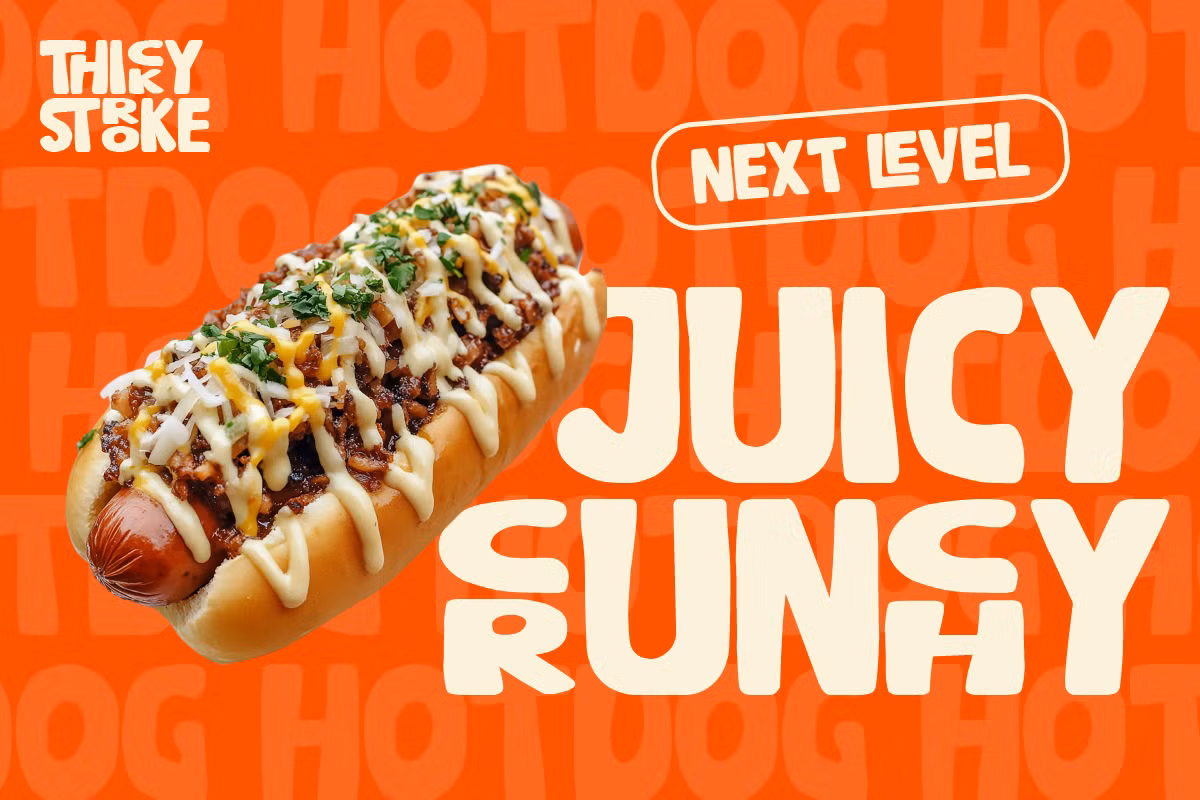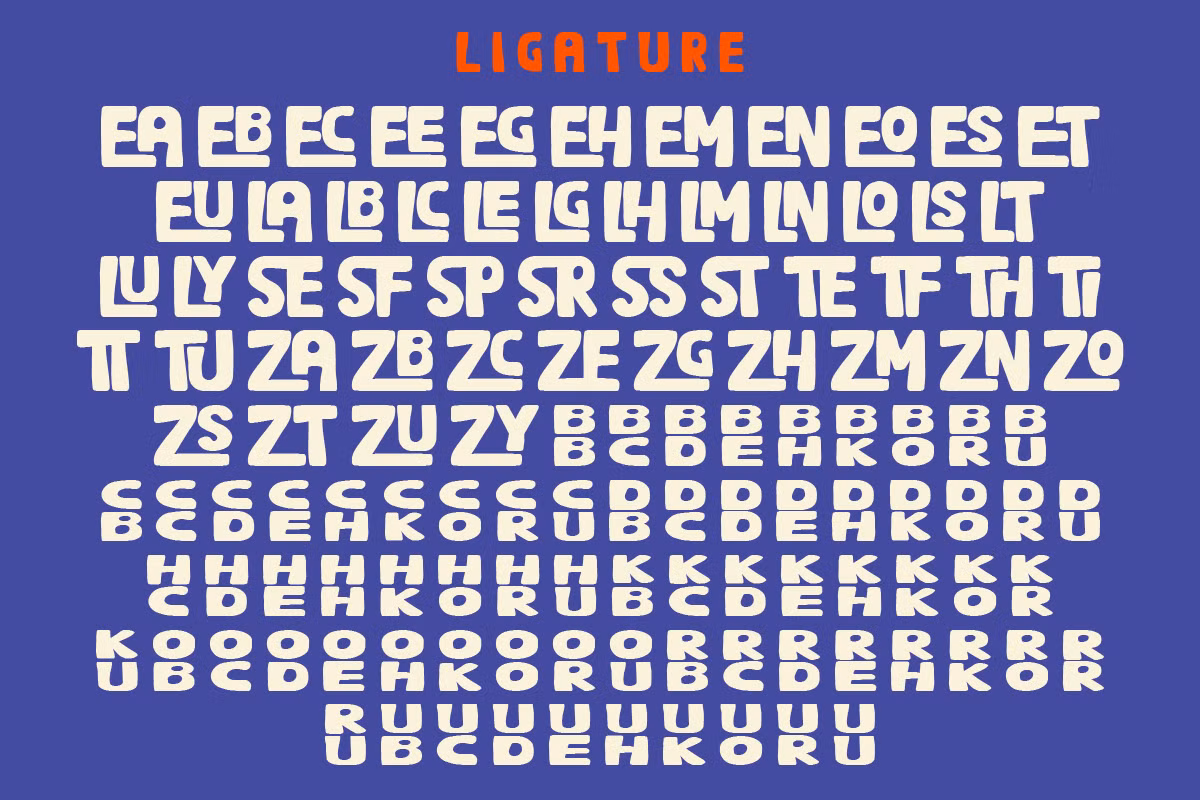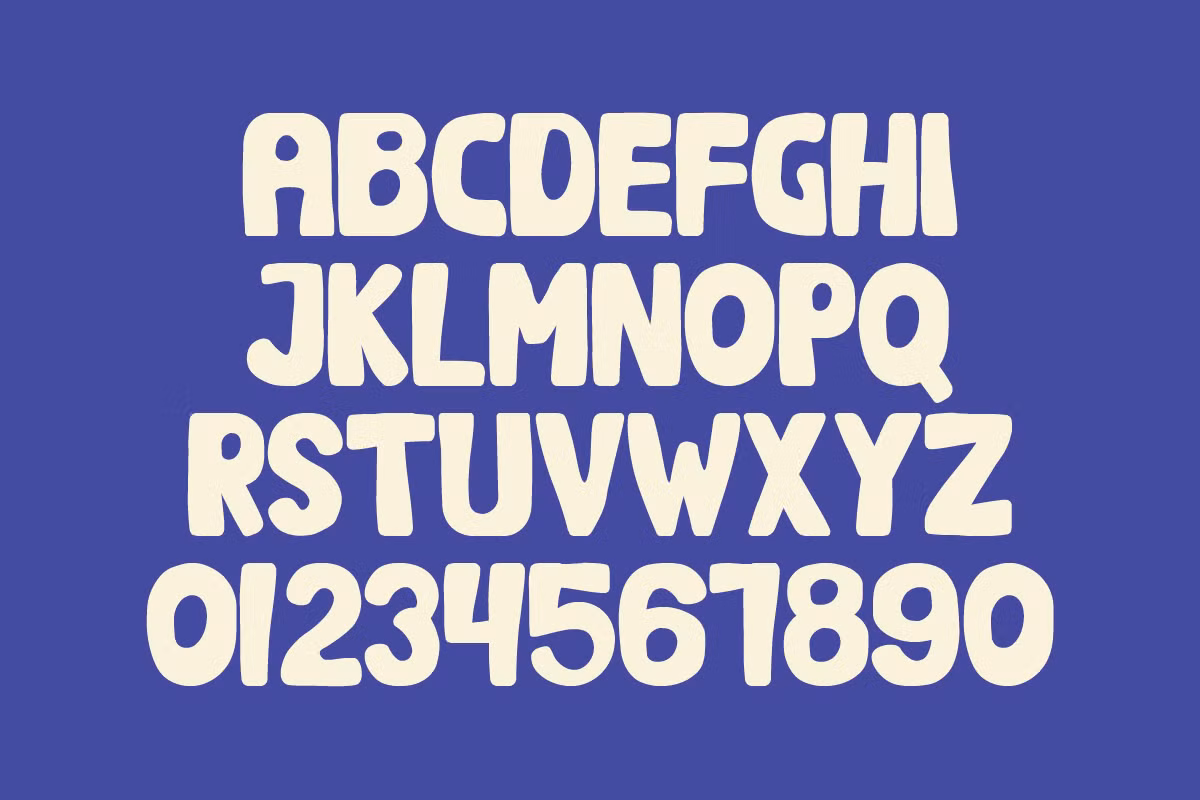
Thicky Stroke: Modern Handrawn Font for Versatile Design Applications
Introducing ThickyStroke
ThickyStroke is a sleek, modern font that’s all about precision and style. Its clean lines and curves give it a quiet, confident feel that can really make your designs stand out. Whether you’re working on a brand, a magazine layout, a website, or packaging, this font is super versatile and can handle it all. The people who made it were really careful to make sure it’s easy to read and looks great, so it’s got a nice balance of modern style and classic simplicity.
This means that each letter and character works well together to get your message across clearly and effortlessly. With ThickyStroke, you can create designs that are both modern and timeless, making it a great choice for a wide range of projects. Its simplicity and elegance make it perfect for minimalist designs, while its versatility allows it to work well in more complex layouts. Overall, ThickyStroke is a great font for anyone looking to add a touch of sophistication and style to their designs.
Design Style of ThickyStroke
ThickyStroke has a design style that’s really modern, but also has a classic feel to it. The font is sans-serif, which means it doesn’t have any fancy edges, so it looks clean and simple. This makes it perfect for using in lots of different situations. The way the curves and straight lines are balanced in the design makes it look friendly and professional at the same time.
One of the best things about ThickyStroke is that it’s easy to read, no matter how big or small you make it, which is why it’s a great choice for both digital things like websites and print things like brochures. Overall, the style of ThickyStroke is just really versatile and works well in many different contexts. ThickyStroke’s simple style fits in with what’s popular in design right now, which is all about keeping things simple and functional.
Character Sets
ThickyStroke is a pretty versatile font that can handle all sorts of design projects. It’s got a full set of characters, including uppercase and lowercase letters, so you can style your text however you like. Plus, it’s got numbers, which is a must-have for any design that involves data or prices. This makes it a great choice for a wide range of applications, from creating eye-catching headlines to displaying important information in a clear and easy-to-read way.
With ThickyStroke, you can trust that your text will look great and be easy to understand, whether you’re working on a website, a brochure, or something else entirely. What really sets ThickyStroke apart is that it works well in lots of different languages, so designers can use it for projects that need to reach people who speak different languages.
This is really helpful for big brands that need to appeal to people all over the world. Plus, the fact that it comes with alternate versions of letters gives designers the freedom to get creative and make their text look really unique. This means they can make each project look special and interesting, which is great for grabbing people’s attention.
Use Cases for ThickyStroke
ThickyStroke’s versatility makes it suitable for numerous applications across different design fields. Here are some notable use cases:
- Branding: ThickyStroke can be an integral part of a brand’s visual identity, helping to establish a strong, memorable presence. Its modern yet timeless design makes it suitable for both startups and established companies.
- Editorial Layouts: In magazines or online publications, ThickyStroke can be used for headlines, subheadings, and body text. Its legibility ensures that readers can engage with content effortlessly.
- User Interface Design: ThickyStroke is a great option because of its simple and clean look. This makes it perfect for apps and websites where it’s really important that people can read things easily.
- Minimalist Packaging: For product packaging, ThickyStroke’s elegant simplicity can help convey the brand’s message without unnecessary embellishments, making it ideal for eco-friendly or luxury products.
Pairing fonts is a crucial aspect of design that can significantly impact the overall aesthetic of a project. When working with ThickyStroke, consider these pairing suggestions:
- With Serif Fonts: Pairing ThickyStroke with classic serif fonts like Times New Roman or Georgia can create a striking contrast.
- With Fancy Fonts: When you want to add some personality to a project, think about using ThickyStroke with fancy fonts like Lobster or Pacifico.
- With Monospaced Fonts: For a tech-oriented design, pairing ThickyStroke with a monospaced font like Courier New can create a modern, clean look.
With its comprehensive character set, thoughtful design features, and robust compatibility, ThickyStroke stands out as a must-have typeface for any designer’s toolkit.